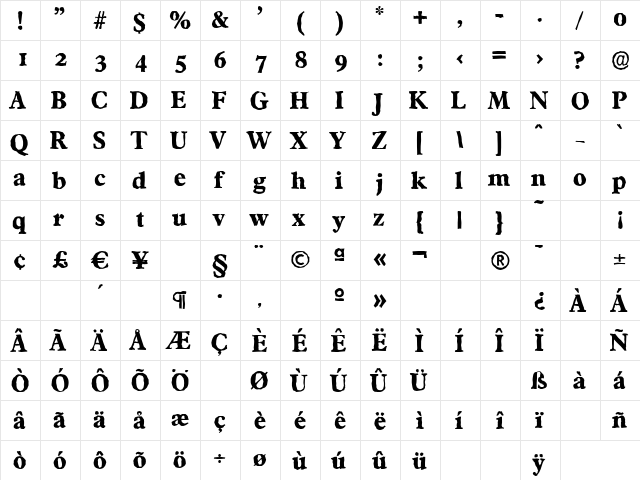
FranciscoAntique-Xbold Regular
Design Context for FranciscoAntique-Xbold Typeface
FranciscoAntique-Xbold has the warm character of retro typography — evoking diners, record sleeves, and the golden age of print advertising. Its bold stroke weight gives it real presence on the page.
Font Pairing: Combine FranciscoAntique-Xbold with a simple slab or neutral sans — period-accurate companions reinforce the vintage feel without competing for attention.
Pro Tip: Use FranciscoAntique-Xbold for headlines and pull quotes rather than body copy — its personality is best appreciated in short, focused bursts.